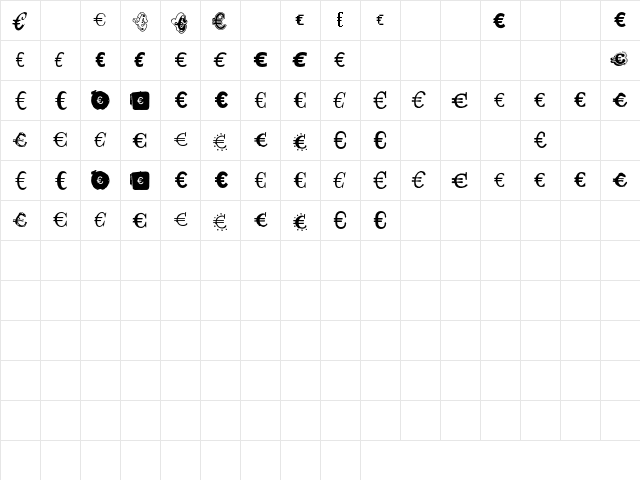
EmigreEuro Regular
Design Context for EmigreEuro Typeface
EmigreEuro offers clean, dependable letterforms without strong stylistic allegiance, making it a practical choice for designers who need flexibility.